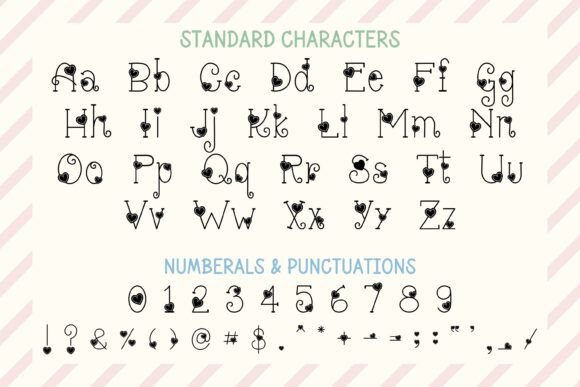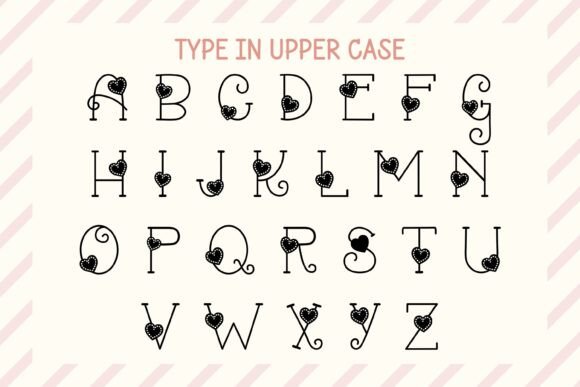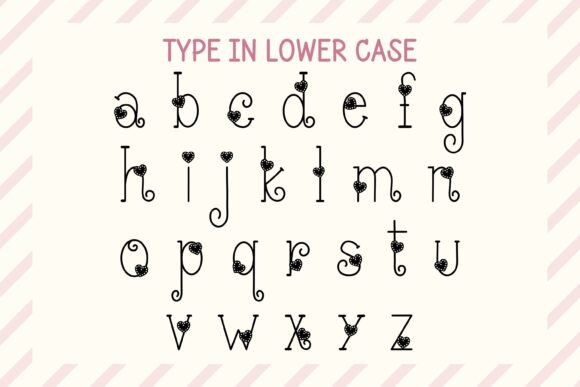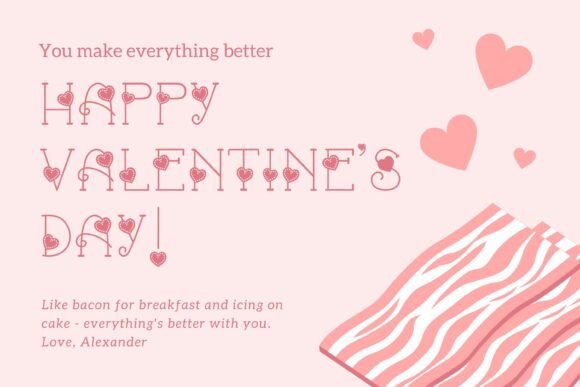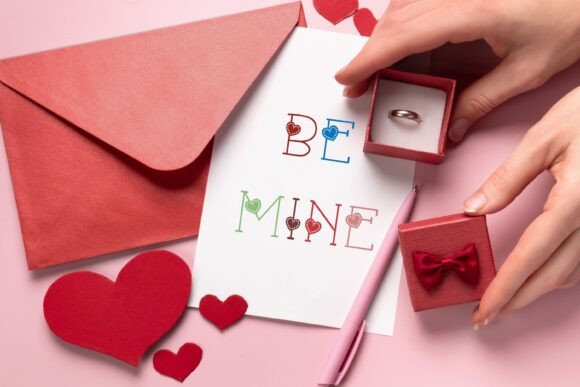
Introduction to Mini Heart Iv Font
Mini Heart IV font is a cute decorative Valentine’s Font ideal for crafting, and perfect for designs that need a playful, cheery accent.
Mini Heart IV font suits gift tags, book covers, posters, packaging, merchandise, logotypes, and many more .